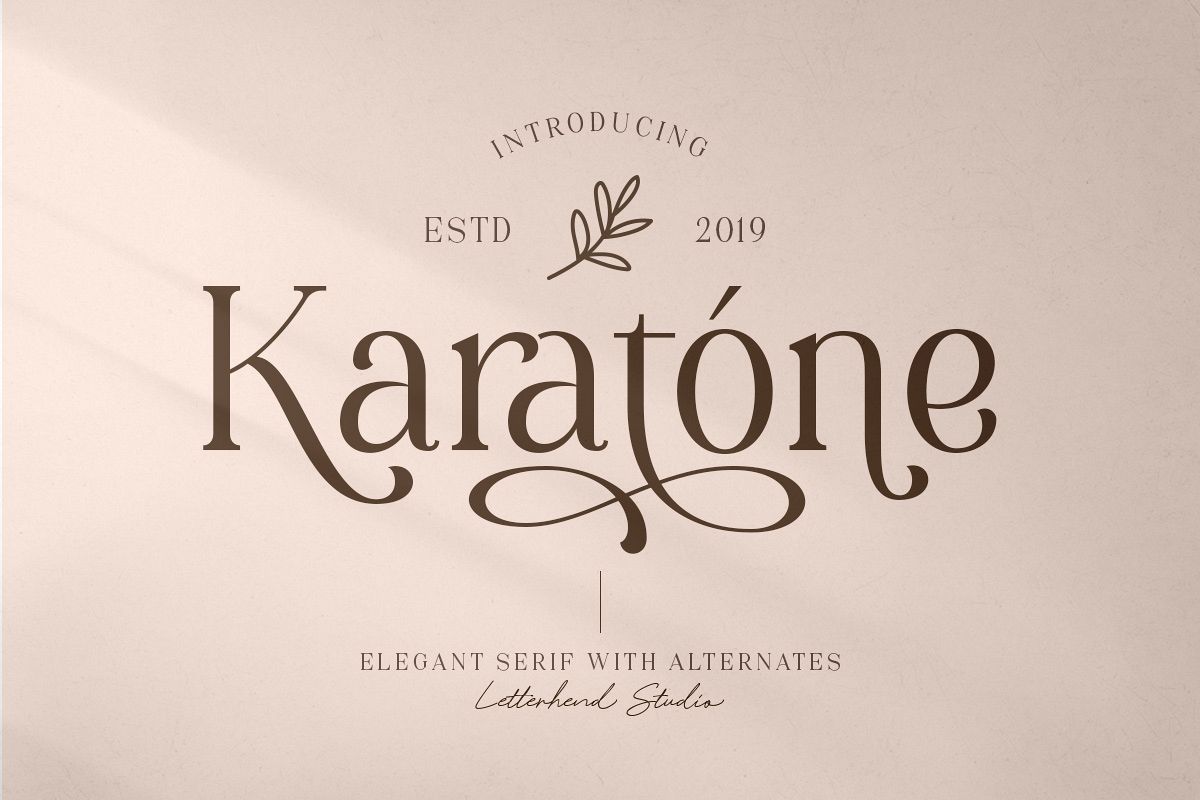
Karatone - Elegant Serif
Karatone
Introducing, Karatone, An Elegant Serif. This typeface has many alternates with swashes that can make your lettering / logotype become more interesting. The clean and neat of a serif combined with the swirl swashes makes this font one of a kind!This font perfectly made to be applied especially in logo, and the other various formal forms such as invitations, labels, logos, magazines, books, greeting / wedding cards, packaging, fashion, make up, stationery, novels, labels or any type of advertising purpose.Features :
• uppercase & lowercase
• numbers and punctuation
• multilingual
• ligatures
• alternates
• swashes